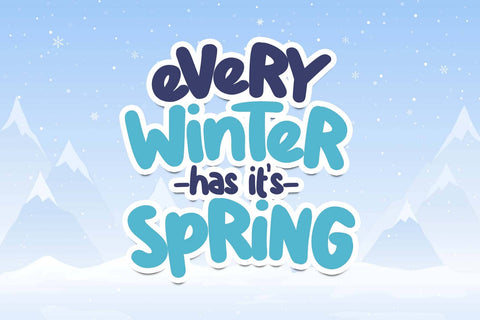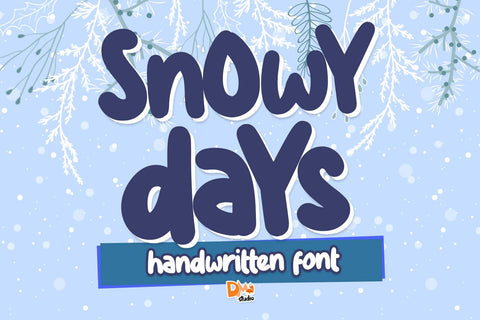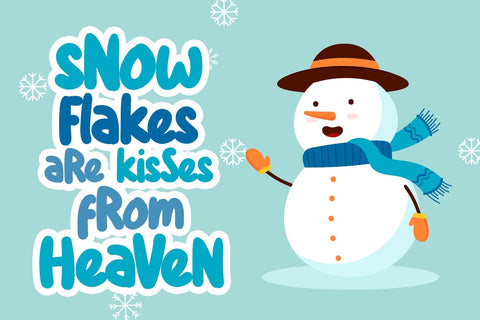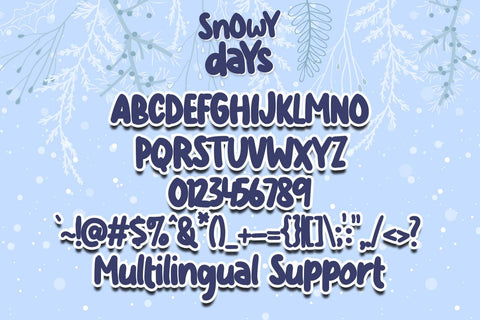
Snowy Days Font
Snowy Days Font is a whimsical and wintery typeface that brings the enchanting beauty of snowy landscapes to your design projects. Inspired by the magic of winter, this font is perfect for creating cozy holiday-themed designs, greeting cards, invitations, and more.
- Winter Wonderland Aesthetic: The Snowy Days Font captures the serene and magical atmosphere of snowy days, making it ideal for winter-themed projects and holiday designs.
- Versatile Typeface: This font is designed to be versatile, suitable for a wide range of applications, from festive invitations to heartwarming seasonal graphics.
Usage:
- Holiday Designs: Create charming holiday cards, gift tags, and festive banners with the delightful characters of Snowy Days Font.
- Invitations and Announcements: Craft warm and inviting invitations for winter weddings, holiday parties, and family gatherings.
- Cozy Branding: Add a touch of winter charm to your brand with logos, packaging, and social media graphics.
- Seasonal Signage: Design eye-catching seasonal signage for businesses, storefronts, and events with this uniquely themed font.
Let the Snowy Days Font add a touch of winter magic to your designs, making every project a cozy celebration of the season's beauty.